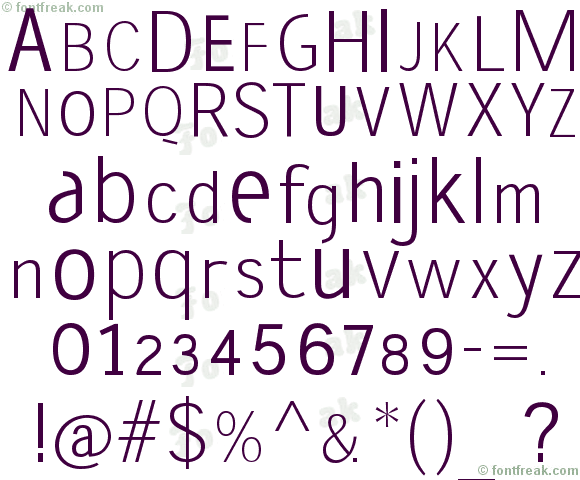
Diversitia
Diversitia, created by Manfred Klein, is a striking sans-serif font that embodies modern simplicity while maintaining a touch of elegance. Its clean lines and well-balanced proportions make it an excellent choice for a variety of design projects. The font features a medium stroke weight with a consistent contrast that enhances readability without sacrificing aesthetic appeal. The generous spacing between characters contributes to its open and inviting feel, making it suitable for both digital and print applications.
This versatile typeface is perfect for a wide range of use cases. It can be effectively utilized in wedding invitations, where its stylish yet legible design adds a sophisticated touch. Additionally, Diversitia is ideal for creating eye-catching movie posters, as its modern look captures attention while ensuring that titles remain clear and impactful. Restaurant menus also benefit from this font, as it lends an air of professionalism that can elevate the dining experience. Furthermore, small business owners will find Diversitia to be an excellent choice for branding materials, as it conveys a sense of trustworthiness and creativity.
The target audience for Diversitia includes graphic designers, content creators, and small business owners looking to enhance their visual identity. Its freeware licensing makes it accessible for all, allowing users to experiment without financial constraints.
What sets Diversitia apart is its ability to blend contemporary style with practical functionality. This font not only enhances the visual appeal of any project but also ensures effective communication through its clarity and elegance. For those seeking a fresh and modern typeface, the Diversitia font free download offers an excellent opportunity to elevate your design work with a unique and versatile tool.